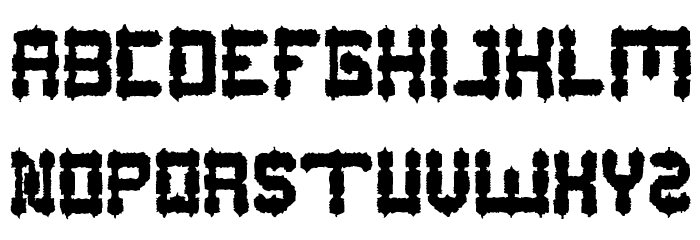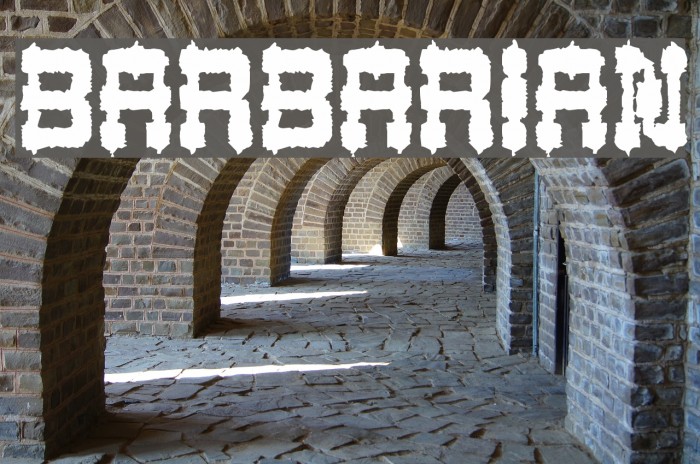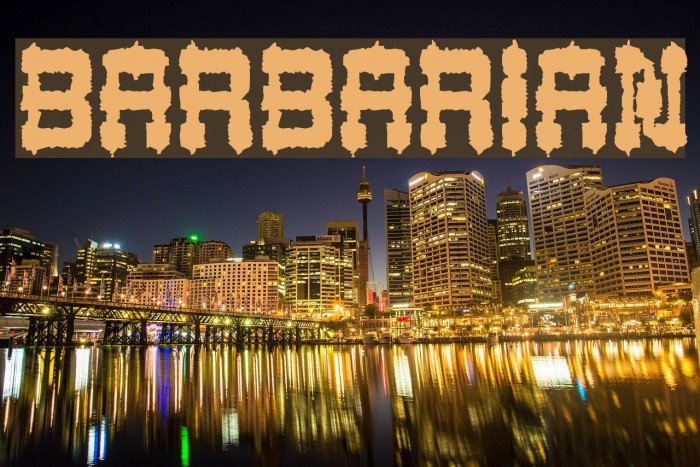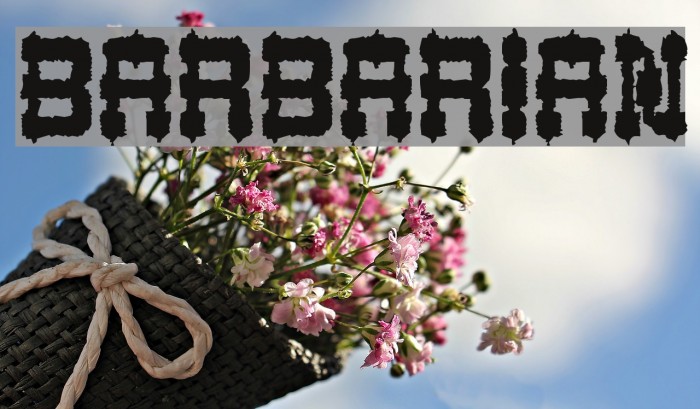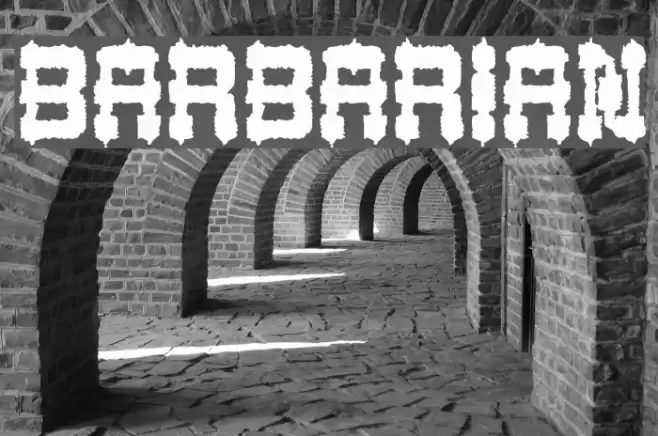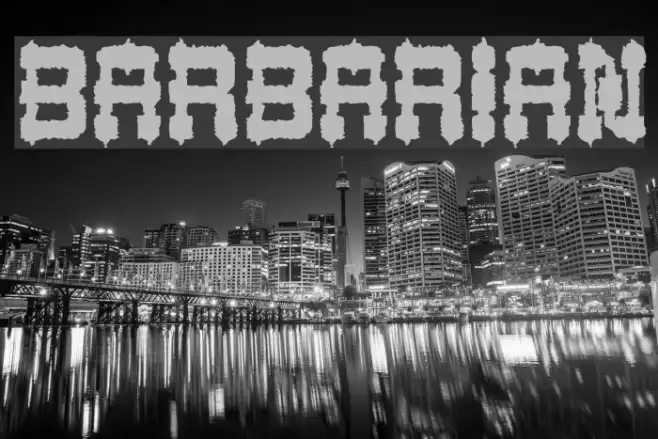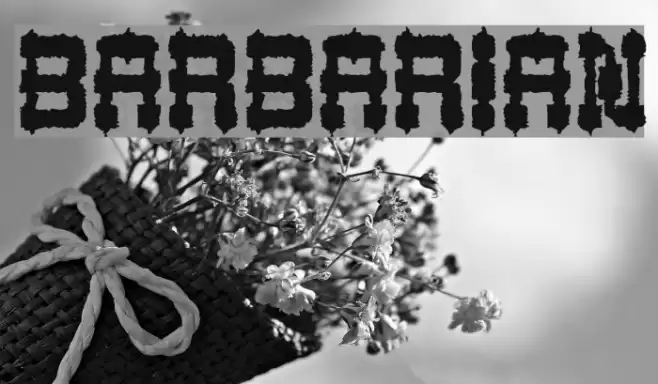
BARBARIAN Font
This font features a rugged, distressed appearance with a bold and impactful style. The characters are designed with rough, jagged edges that give them a weathered, ancient look, reminiscent of stone carvings or battle-worn artifacts. The uppercase letters are uniformly bold, with a consistent height and width, creating a strong visual presence. The font's unique texture and irregular outlines make it stand out, adding a sense of drama and intensity. Its design is suitable for projects that require a bold statement, capturing attention with its raw and untamed aesthetic.
A bold, rugged font with a distressed, ancient appearance.
- Proposed Projects: Ideal for fantasy-themed posters, video game titles, movie logos, and any project requiring a dramatic, ancient look.
- Use Case: Logos, Headlines